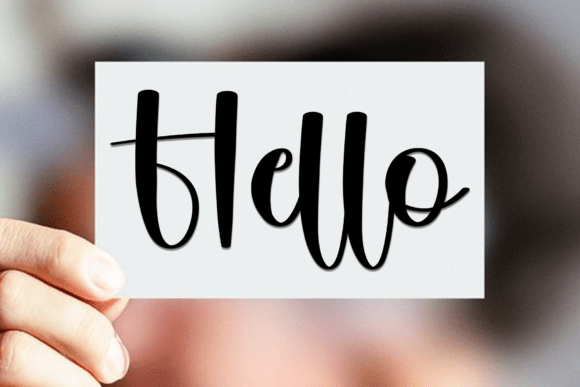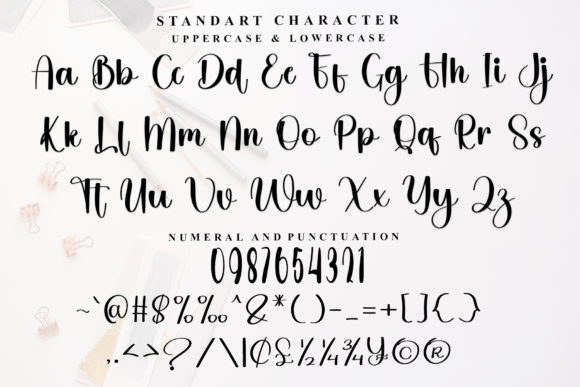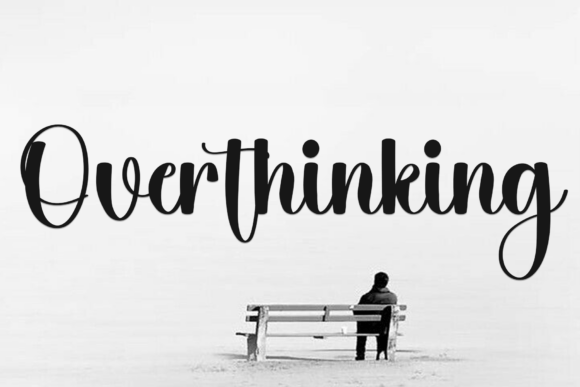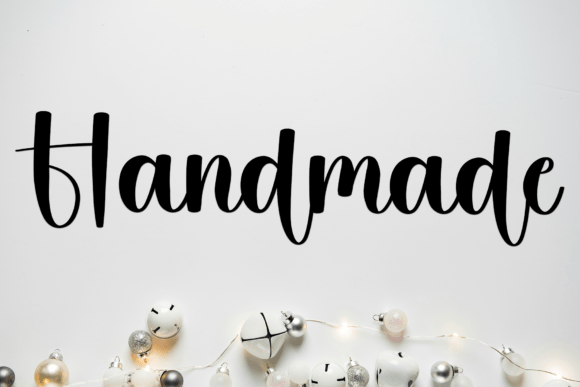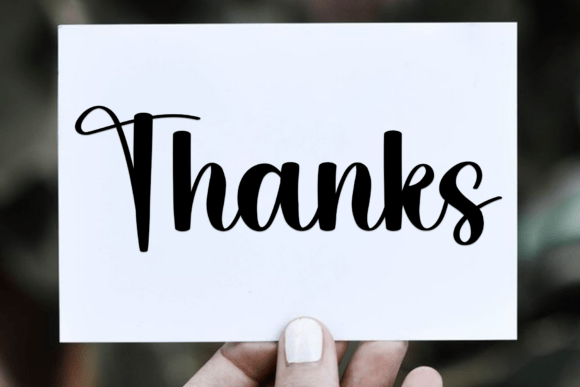
Discover the Timeless Charm of Barbie Font
Remember the first time you sat down with a blank canvas, a pencil, and an endless imagination? For many of us, that moment sparked a lifelong passion for creativity. And for designers, it’s not just about bringing ideas to life – it’s about finding the perfect tools to make those visions shine. That’s where the Barbie Font comes in – a beautiful and eye-catching font designed with a soft, unique touch.
With its distinctive strokes and versatile character, the Barbie Font is a valuable addition to any designer’s toolkit. Perfect for design projects, crafts, and other creative works, this natural font style is compatible with various applications, including Windows and open-source platforms. Whether you’re working on a branding project or a personal art piece, the Barbie Font is sure to enhance your designs and make them appealing to a wide range of audiences.
Barbie Font Key Features
- Unique Characteristics: The Barbie Font features a distinctive, playful script style with rounded edges and flowing connections between letters.
- Kerning and Ligatures: The font includes advanced kerning and ligature features, allowing for precise control over letter spacing and combinations.
Barbie Font Review
I recently had the chance to work with the Barbie Font, and I must say it’s an interesting choice for designers. Here’s my honest review.
- Playful and Fun: The Barbie Font is perfect for projects that require a lighthearted and playful vibe. It’s great for kids’ apps, cartoons, and other fun-themed designs.
- High-Quality Renders: The font renders well in most formats and sizes, making it a reliable choice for designers.
- Unique Character: The Barbie Font has a distinct personality that can add a touch of whimsy to your designs.
- Limited Readability: The font can be difficult to read in certain contexts, especially in body text. It’s best used for headlines or short paragraphs.
- Overused: Unfortunately, the Barbie Font has been overused in recent years, which can make it feel cliché in certain designs.
Overall, the Barbie Font is a fun and unique choice for designers who want to add a playful touch to their projects. However, it may not be the best choice for projects that require high readability or sophistication.